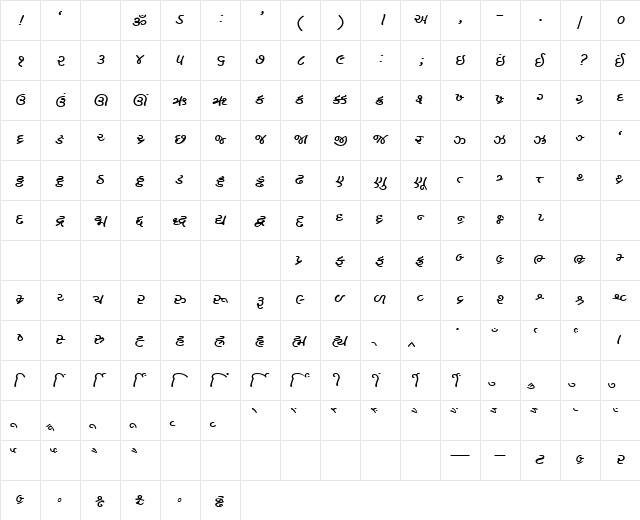
AkrutiGujKamal Bold
Design Context for AkrutiGujKamal Typeface
AkrutiGujKamal takes a measured approach to typography — its balanced proportions and neutral character make it a reliable workhorse for both digital and print work. Its bold stroke weight gives it real presence on the page.